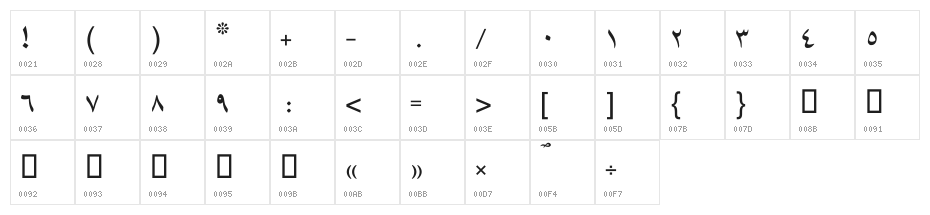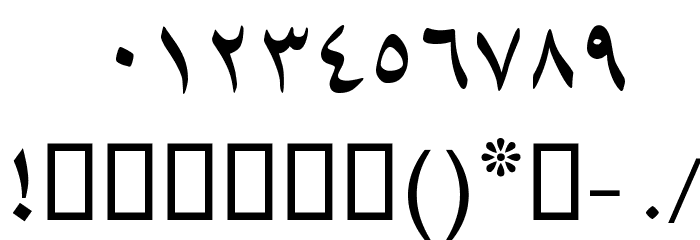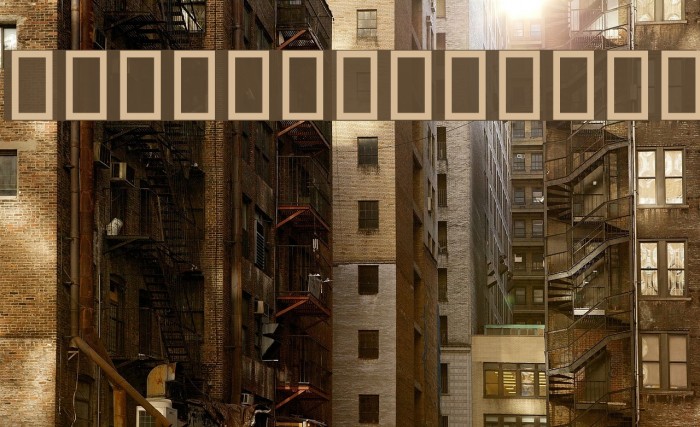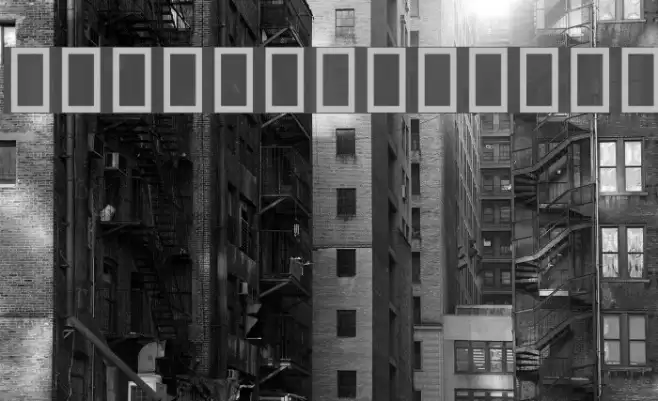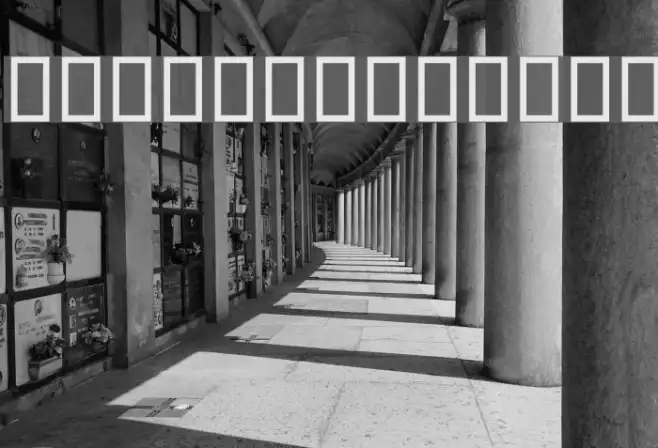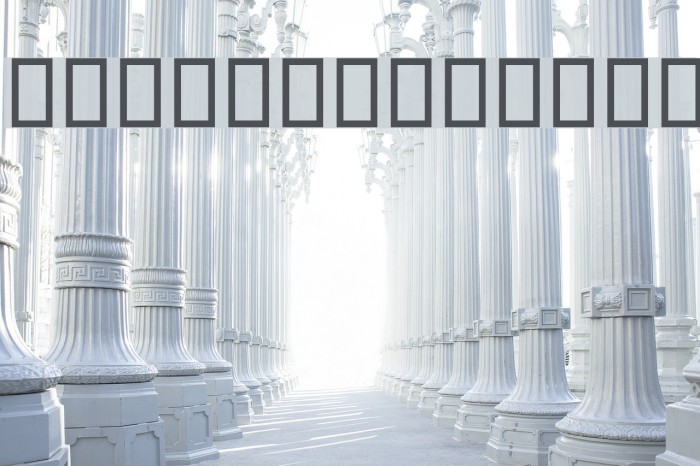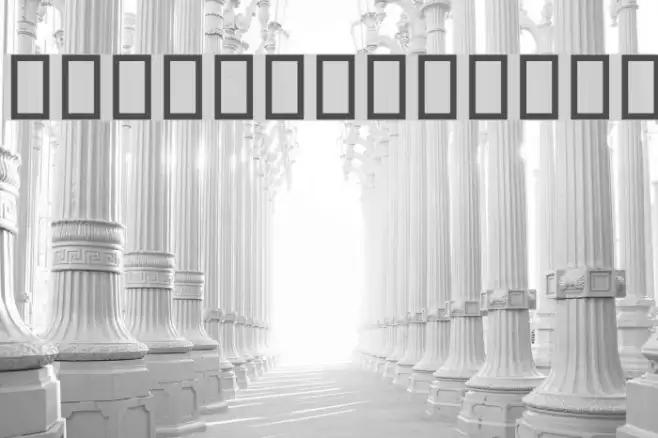
Naskh Cheft Kham Font
Naskh Cheft Kham Description
This font is a refined and elegant script that embodies the traditional Naskh style, characterized by its fluid and harmonious curves. The characters are well-balanced with a consistent stroke width, providing a smooth and readable appearance. The numerals are distinct and maintain the same graceful flow as the letters. Special characters are designed to complement the overall aesthetic, enhancing the font's versatility. This font is suitable for both digital and print media, offering a timeless appeal that is both classic and modern.
| Proposed Projects | Ideal for use in formal invitations, religious texts, cultural publications, and elegant branding projects. |